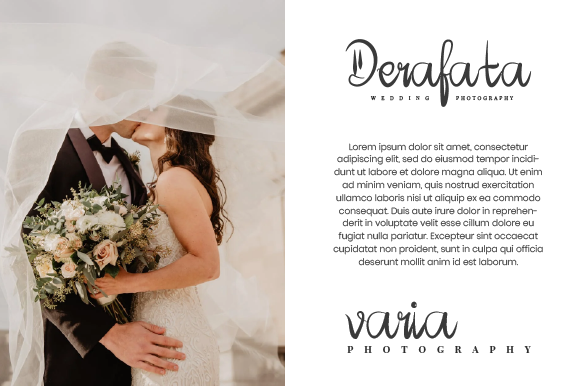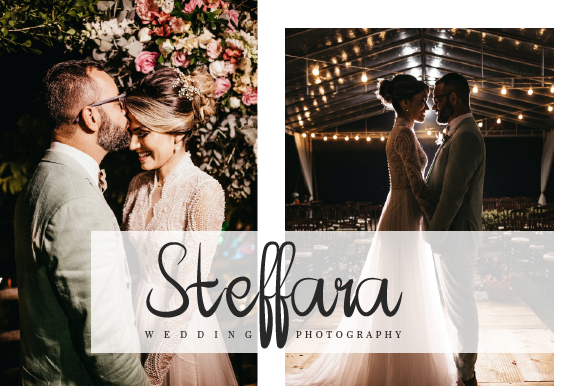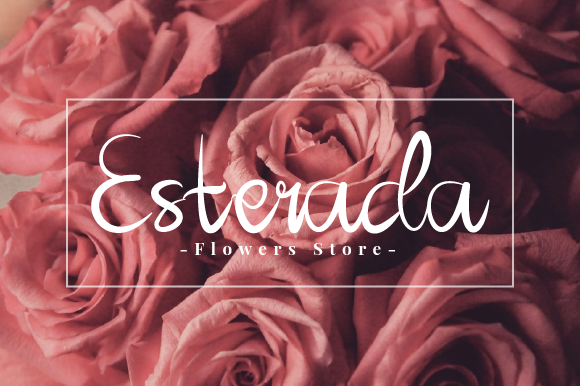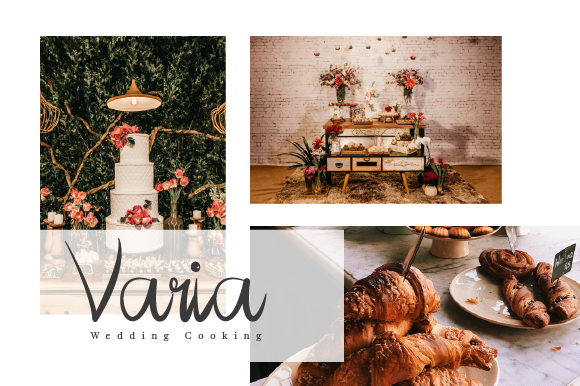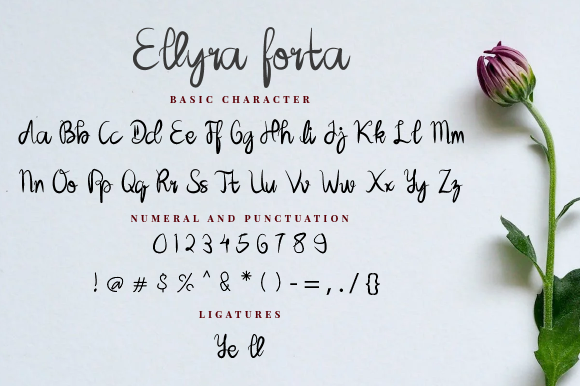
Introduction to Ellyra Forta Font
As designers, we’ve all been there – staring at a blank canvas, eager to bring a creative project to life. The right font can be the spark that sets the entire design ablaze. For those seeking a high-quality, elegant solution, look no further than the Ellyra Forta Font.
This stunning font is designed to add a touch of sophistication to any project, whether it’s a logo, a website, or a social media post. With its smooth lines, gorgeous glyphs, and stunning alternates, Ellyra Forta Font is a versatile design resource that’s sure to impress. Its balanced and varied style makes it perfect for a wide range of creative applications, from branding to editorial design.
Key Features of Ellyra Forta Font
- Unique characteristics include its modern and sophisticated aesthetic, making it perfect for branding, typography, and editorial projects.
Honest Review: Ellyra Forta Font
As a designer, I’m always on the lookout for high-quality design resources to elevate my creative projects. Recently, I had the opportunity to work with the Ellyra Forta Font, and I must say it’s been a game-changer. ✨
- The font’s sleek, modern design is perfect for a wide range of creative projects, from logos to brochures.
One thing to note is that the font may not be suitable for very small text sizes, as it can become difficult to read. ⚠️ However, this is a minor limitation, and the font’s overall quality makes up for it.
Overall, I’m thoroughly impressed with the Ellyra Forta Font. It’s a great addition to any designer’s toolkit, and I highly recommend it for any creative project.
Tips for Getting the Most Out of Ellyra Forta Font
To get the most out of the Ellyra Forta Font, use it in combination with other design elements, such as graphics and images. Experiment with different font sizes and styles to create a unique and eye-catching design.
The Ellyra Forta Font is perfect for a variety of creative projects, including graphic design, social media graphics, presentations, reports, and more. Its high quality and transparent background make it a great addition to any design resource library.